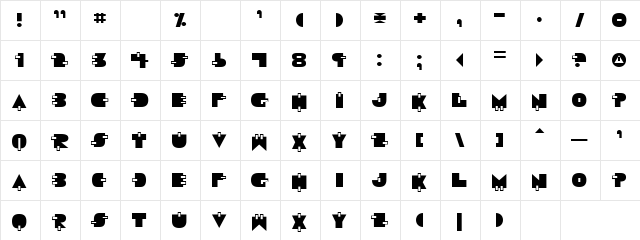
Equation Regular
Design Context for Equation Typeface
Equation is a composed and adaptable typeface that performs quietly and consistently across a wide range of design contexts.